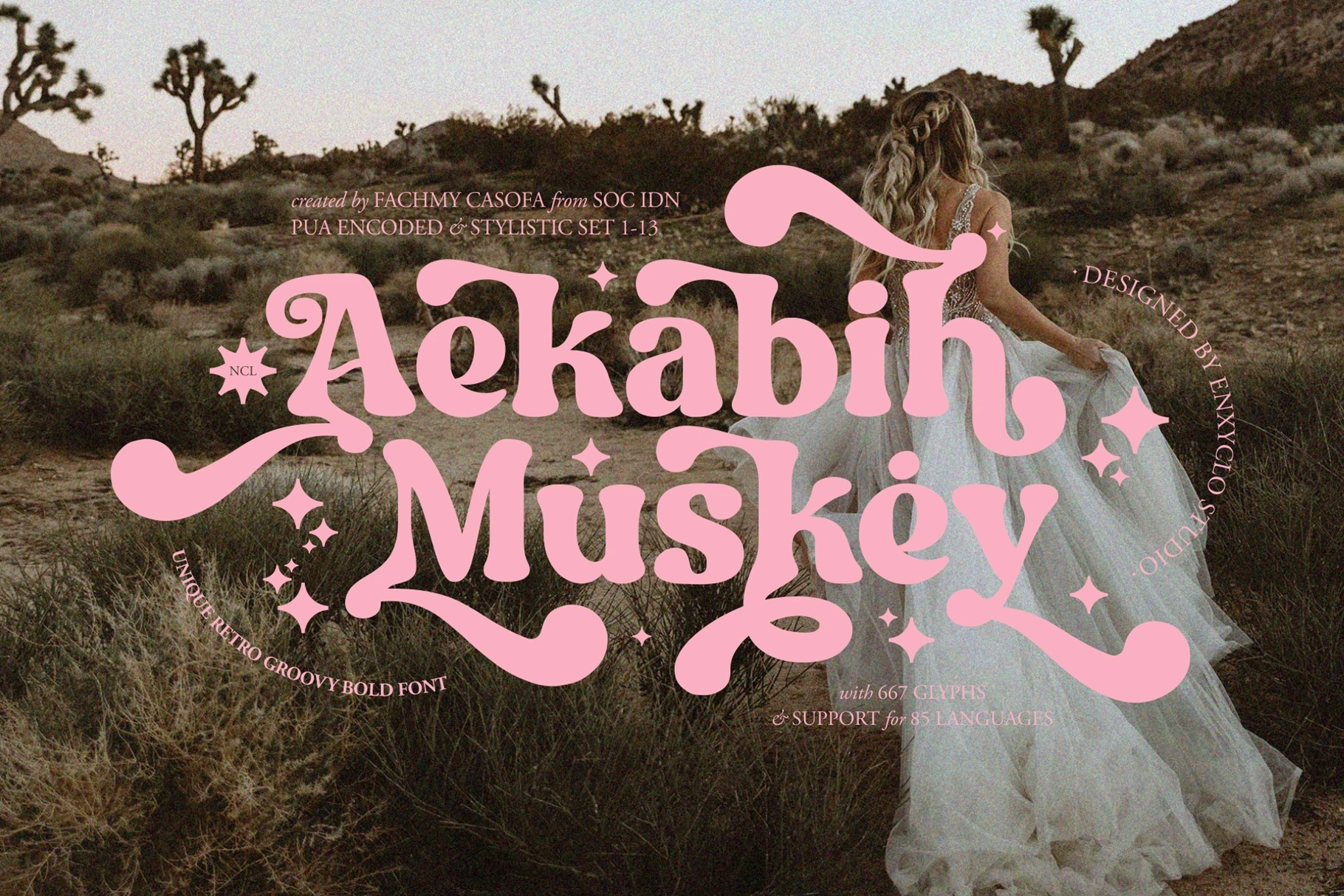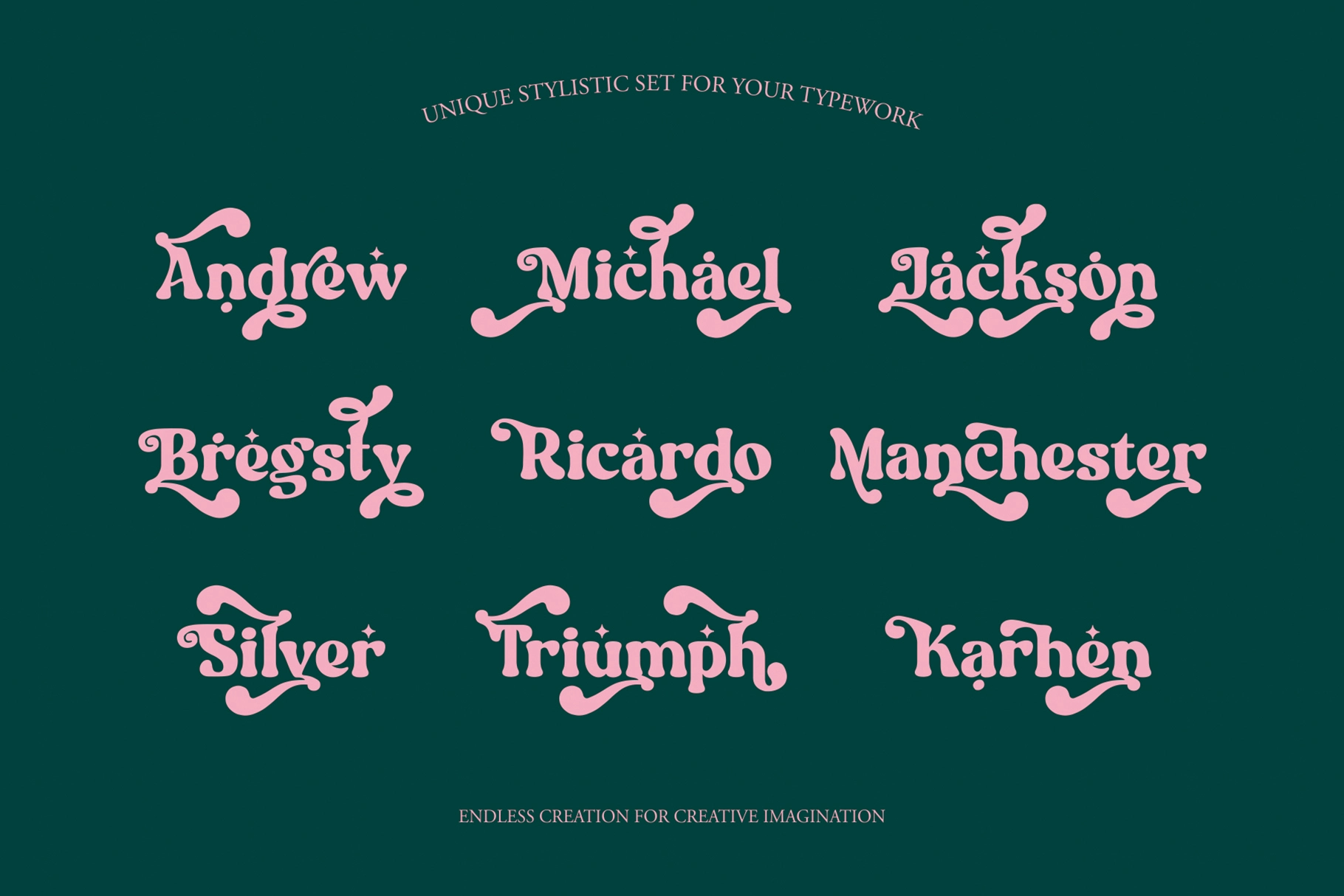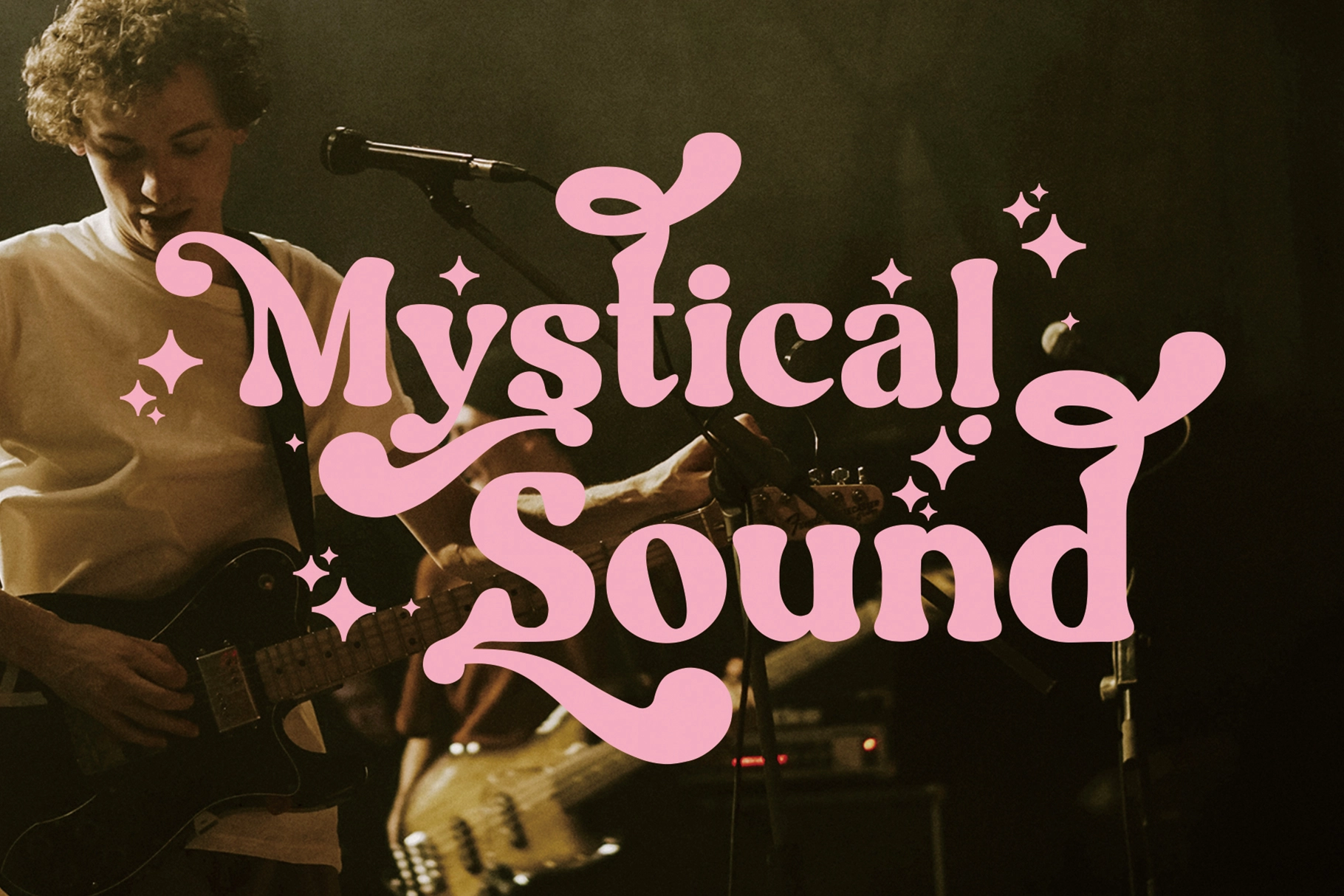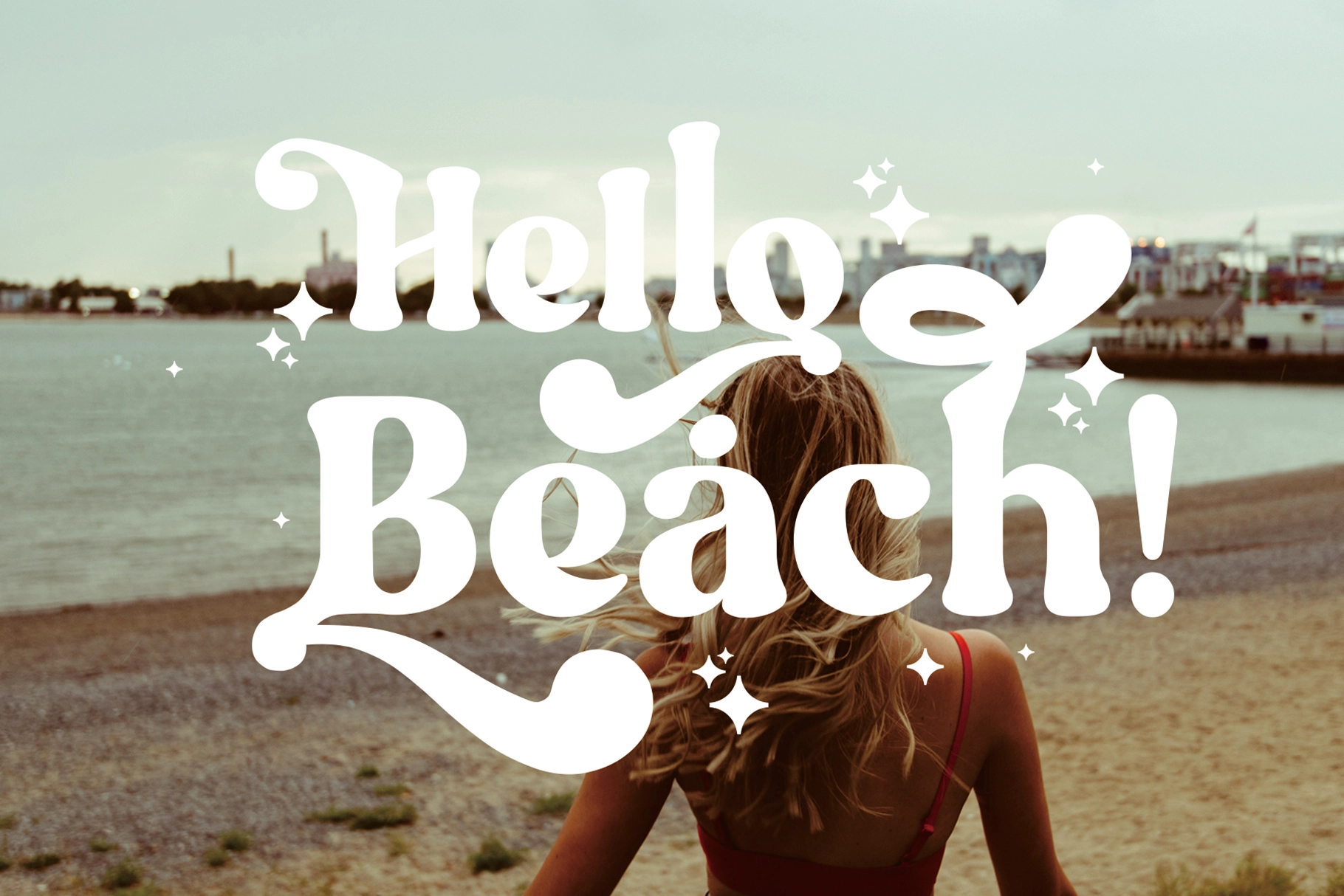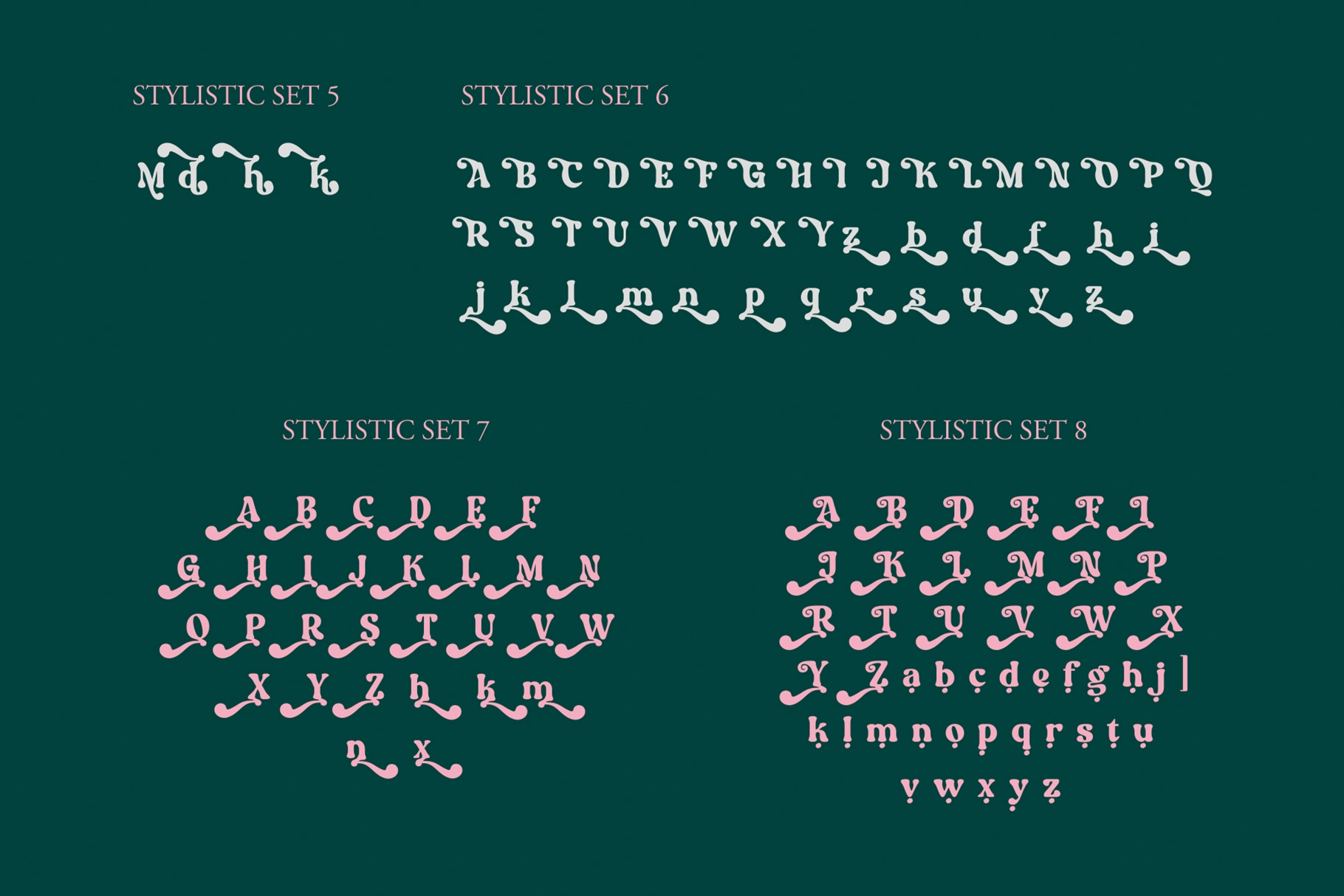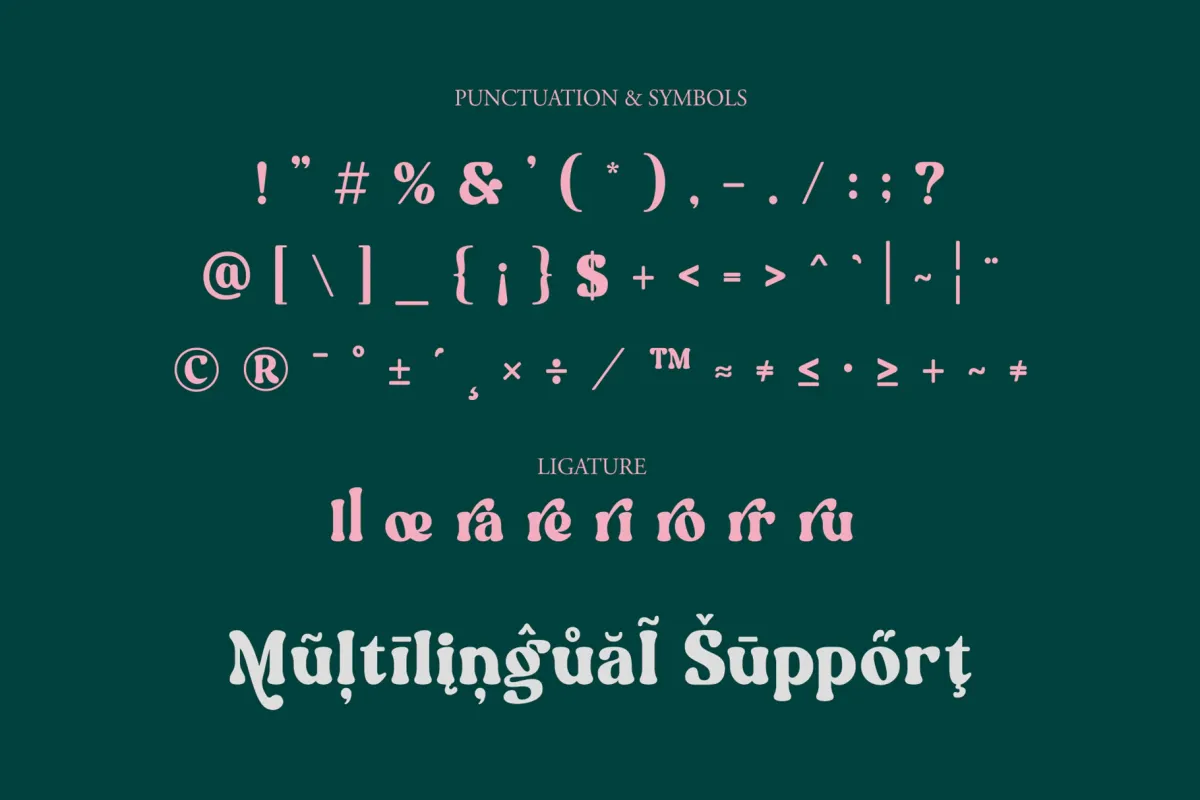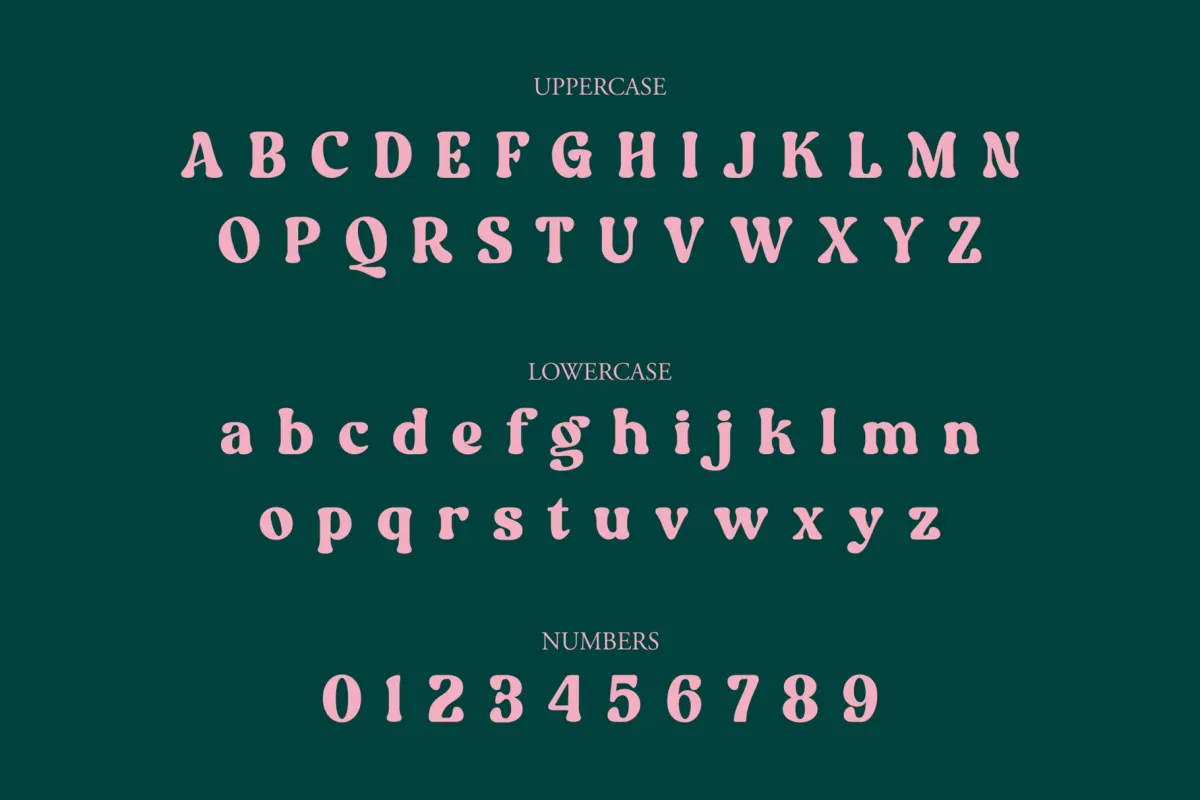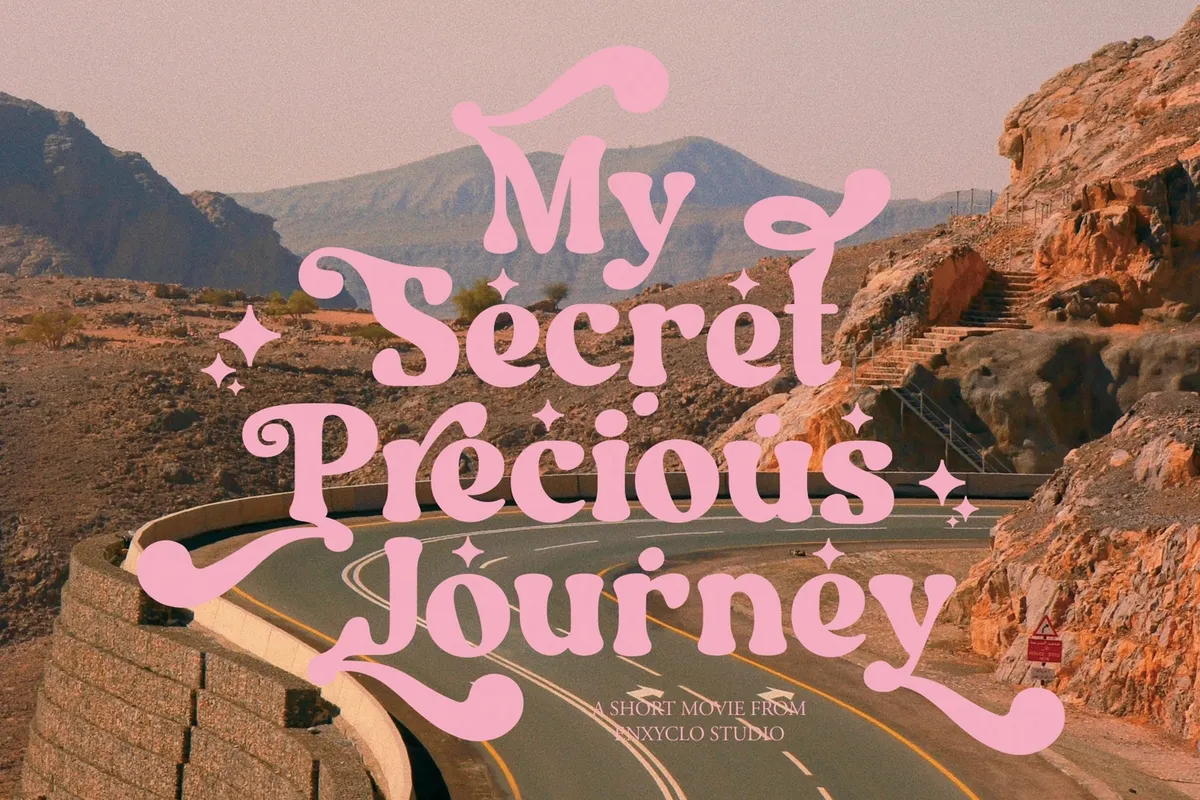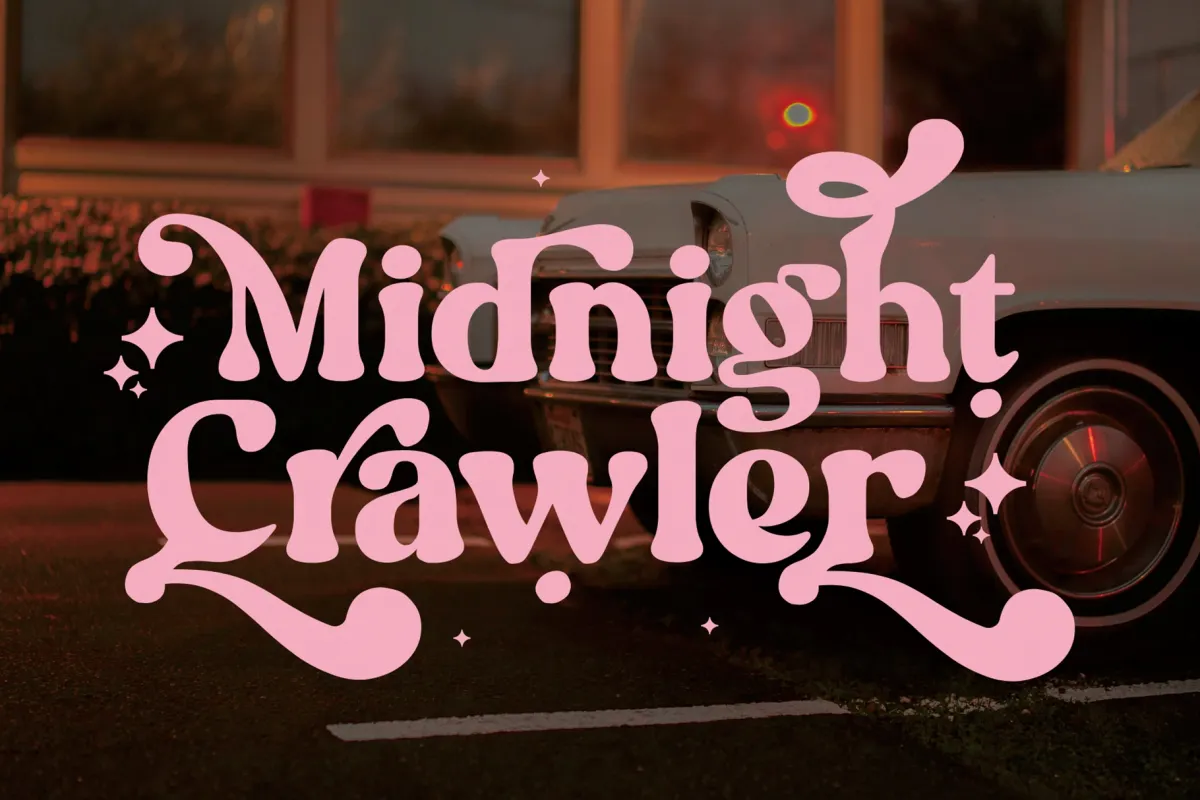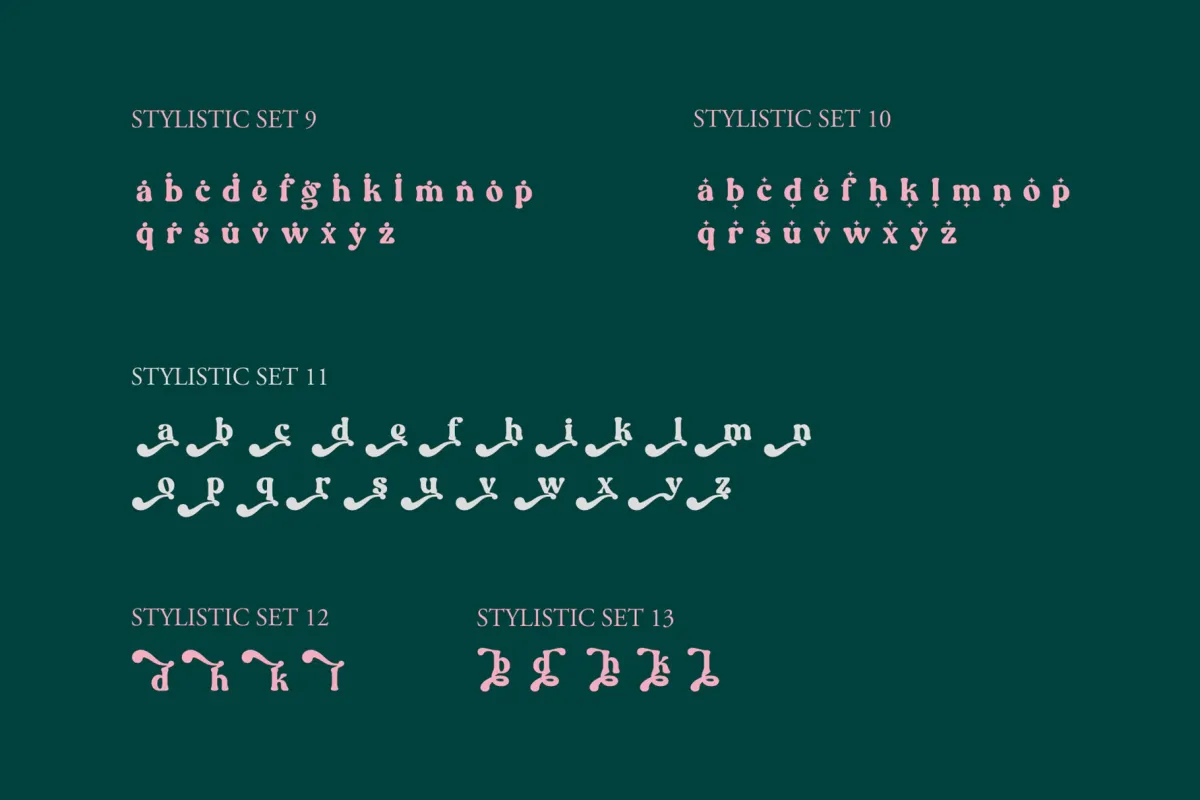
Aekabih Muskey - Whimsical Vintage Serif Font
Aekabih Muskey – Whimsical Vintage Serif Font is a playful retro serif typeface that blends vintage charm with expressive decorative details. Designed with soft curves, whimsical terminals, and groovy character shapes, this font brings a nostalgic yet lively personality to any design. Its bold structure and distinctive letterforms create eye-catching headlines while maintaining a warm and friendly visual tone.
Perfect for branding, posters, music visuals, packaging, magazines, and creative logos, Aekabih Muskey delivers a stylish vintage aesthetic with modern flexibility. With a rich set of stylistic alternates and ligatures, designers can easily craft unique typographic compositions that feel expressive, dynamic, and full of character.
- Special Ligatures
- Stylistic Sets 1–13